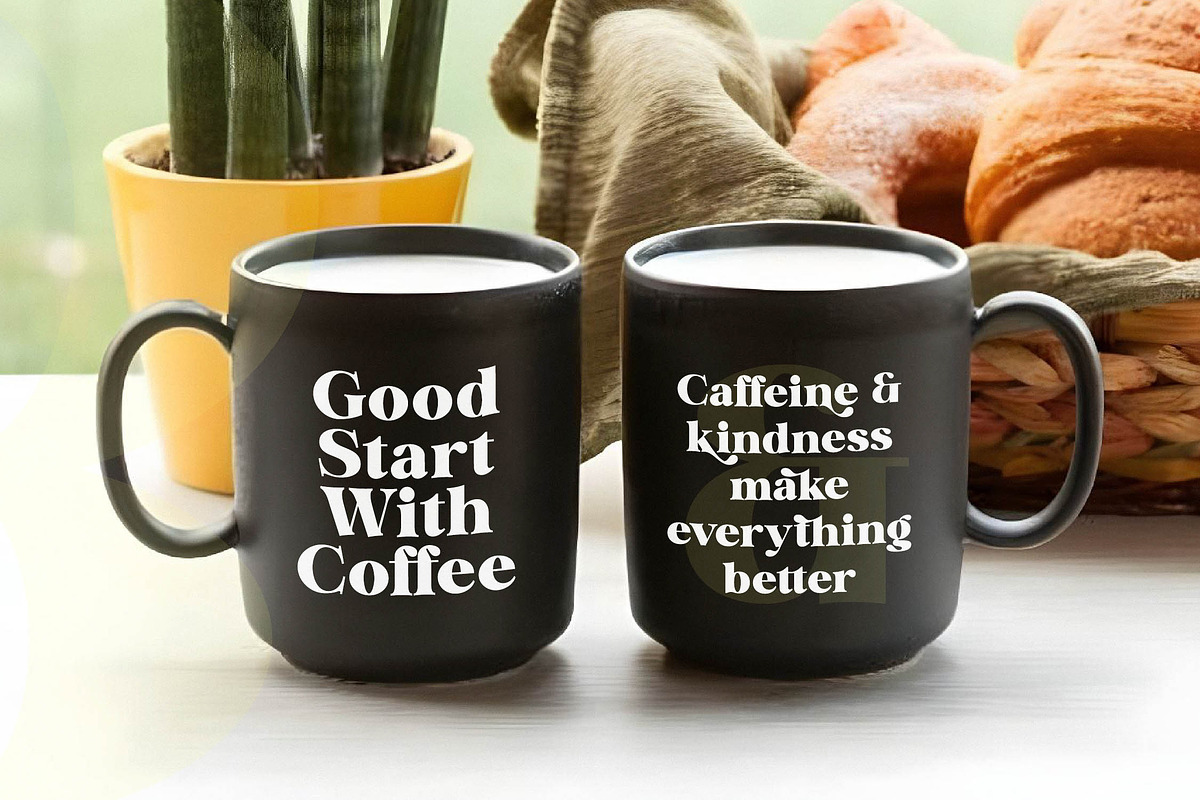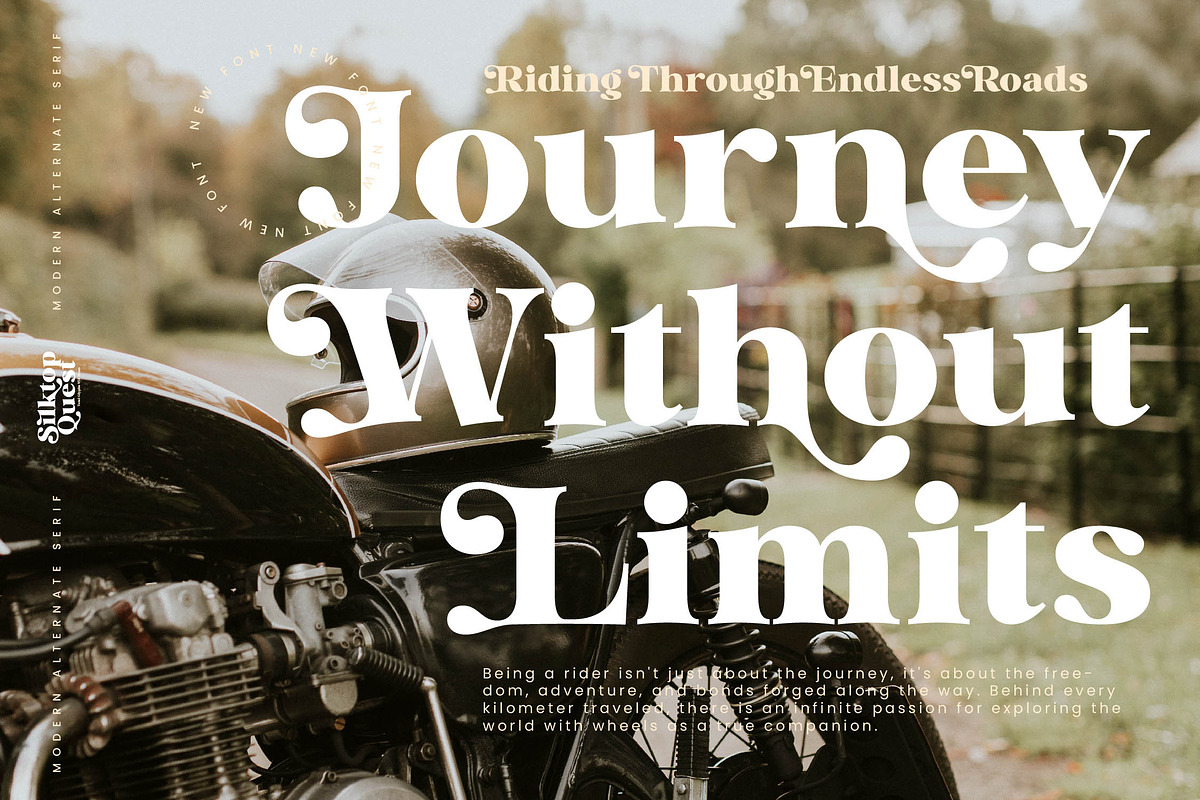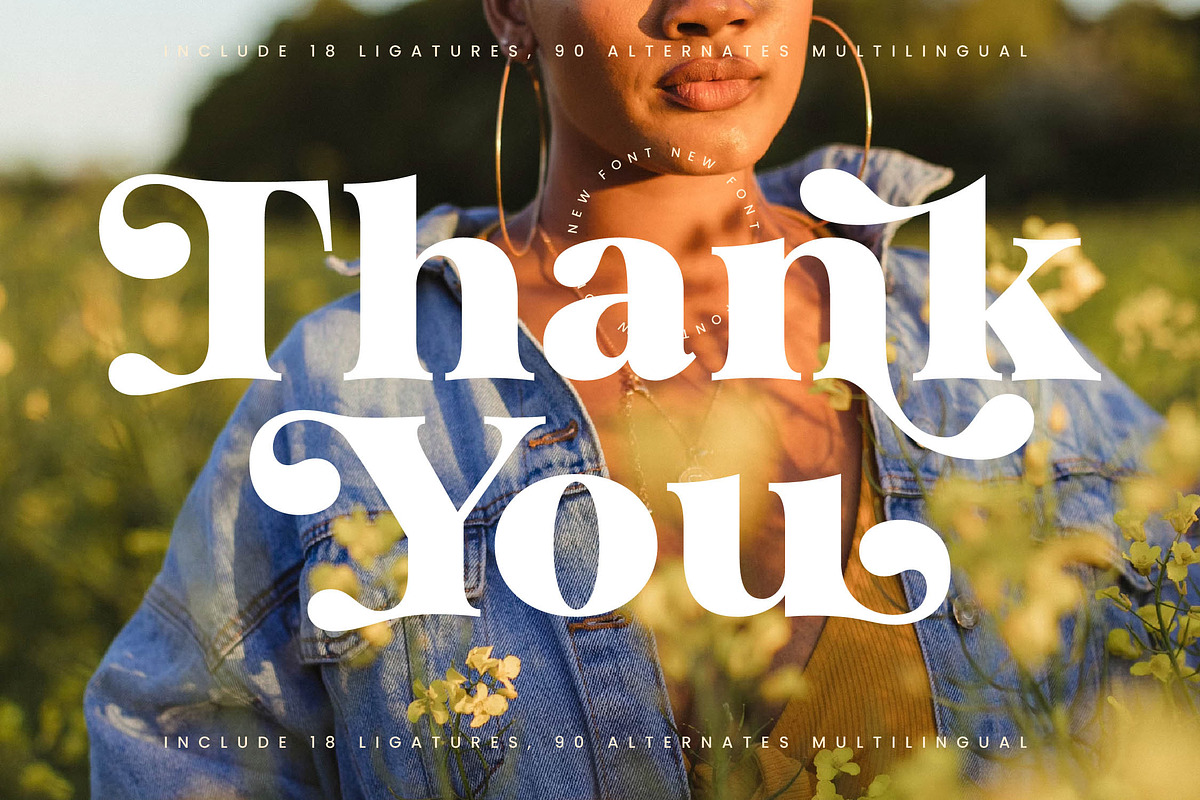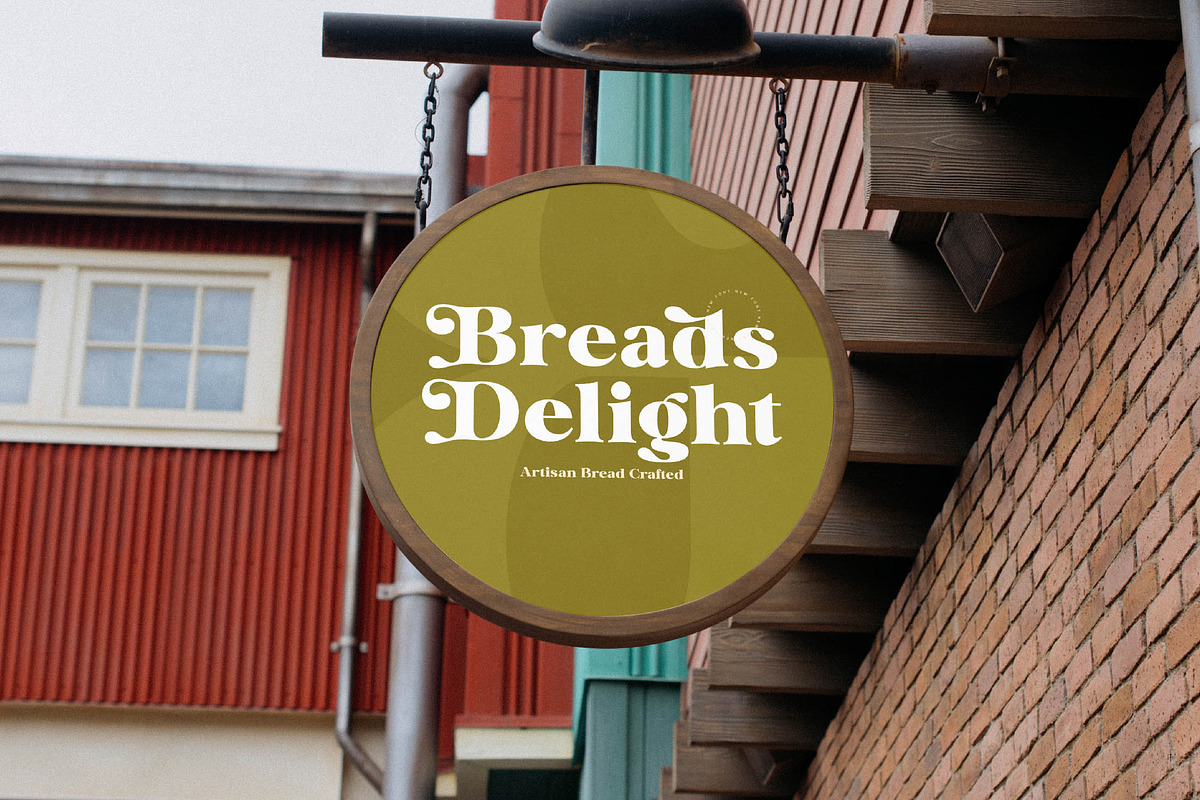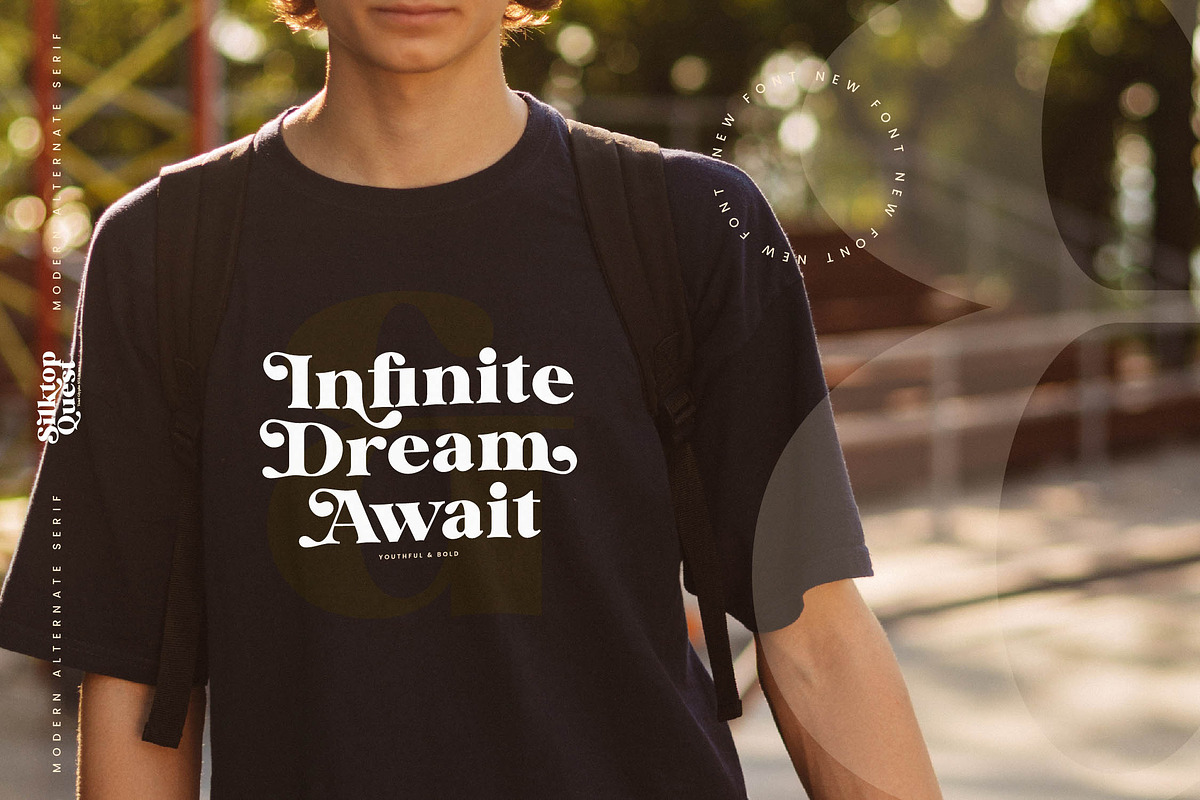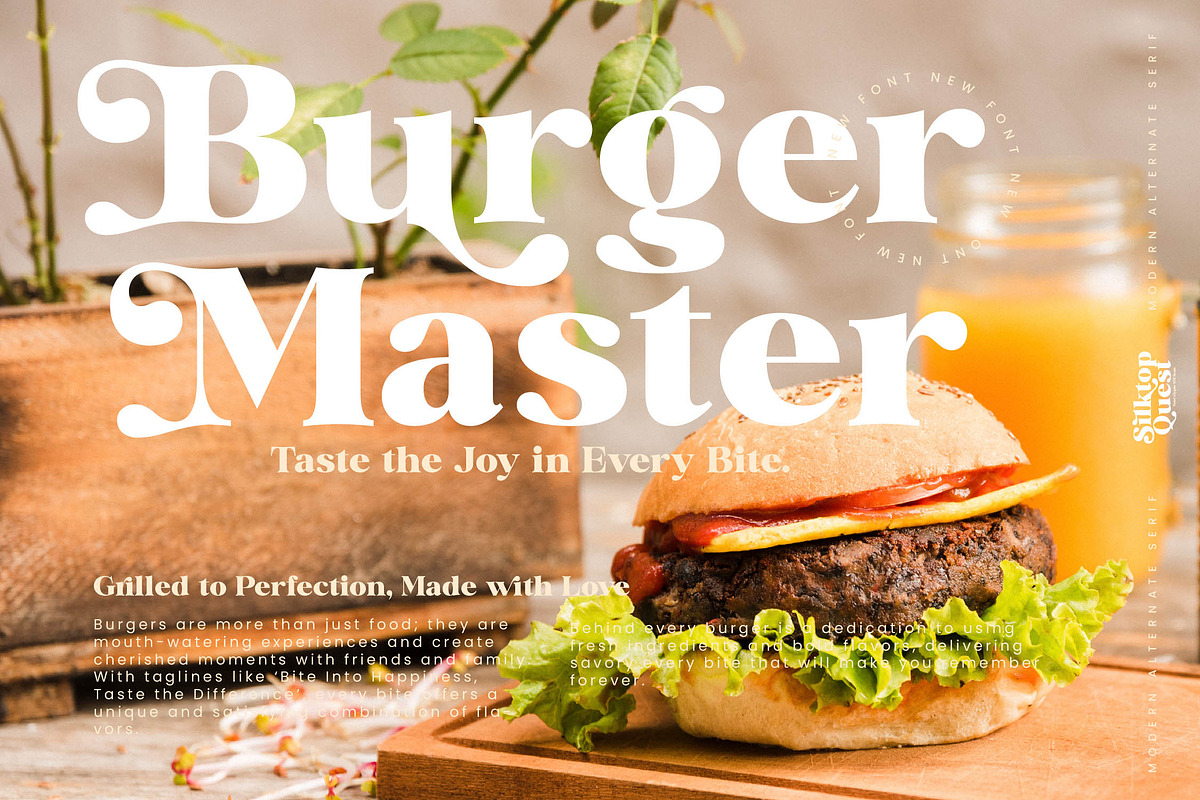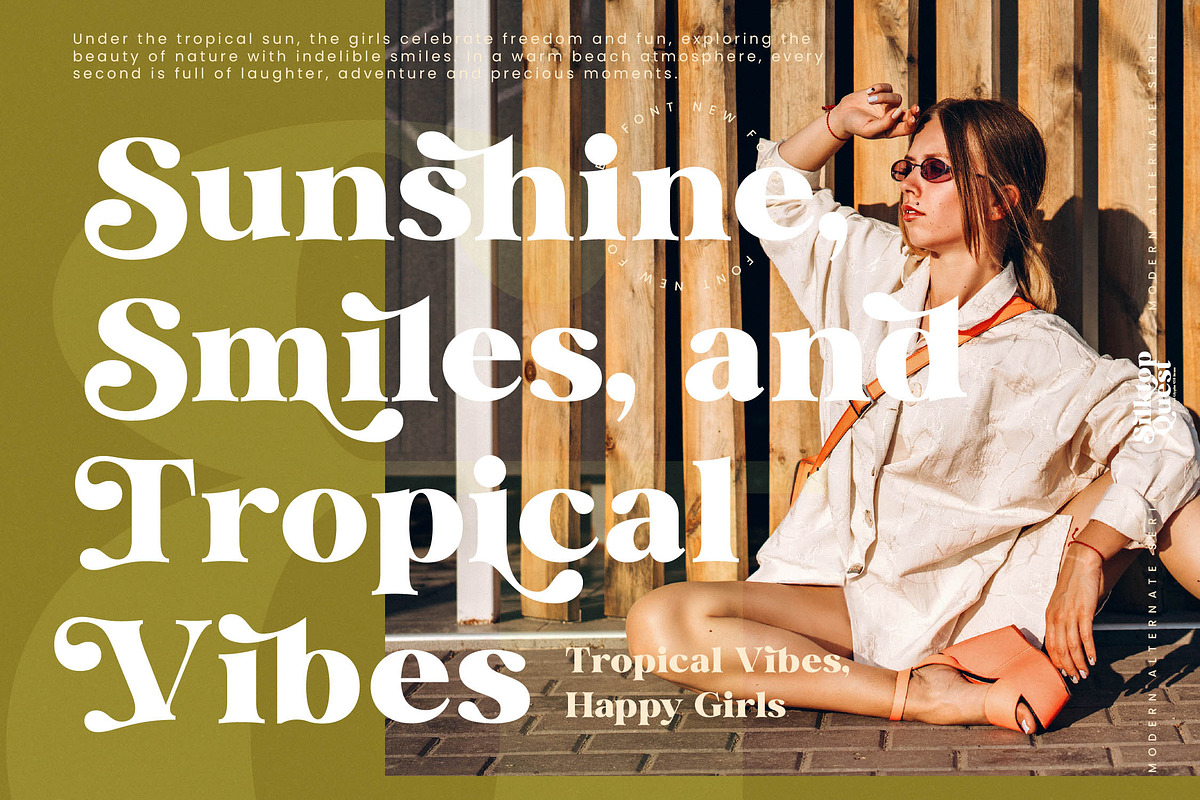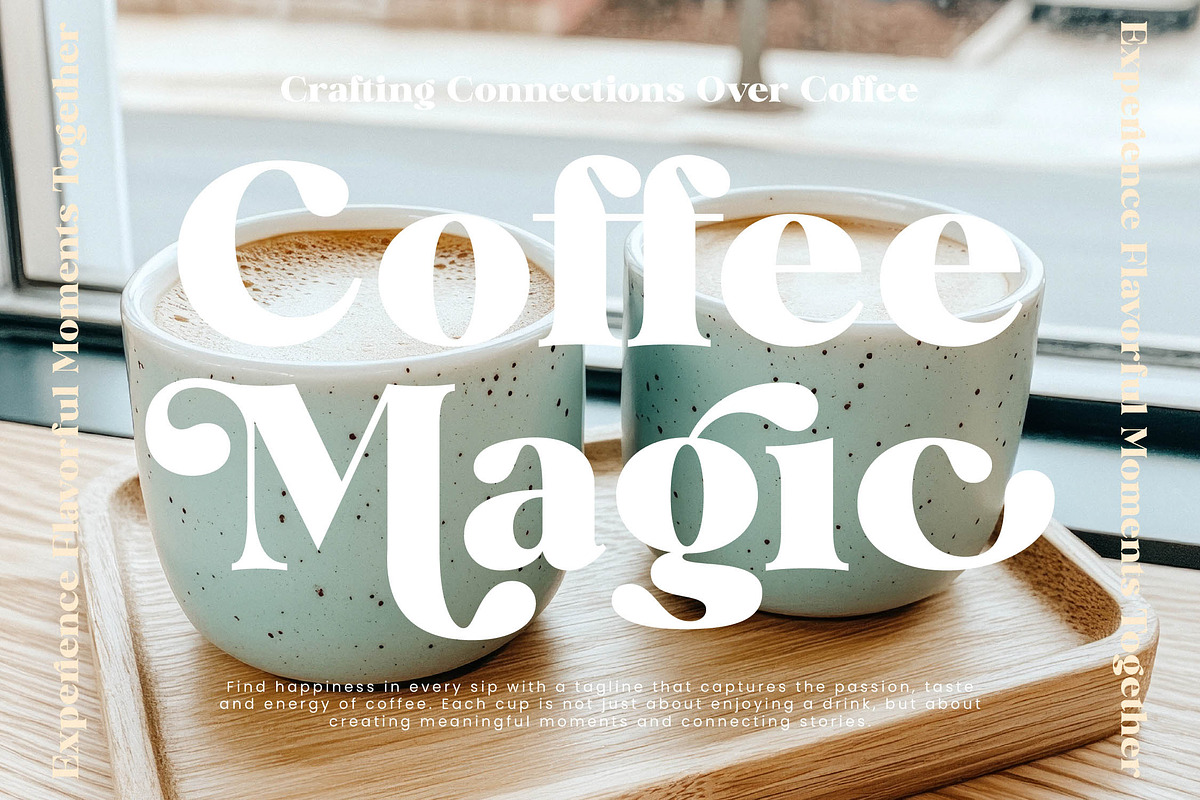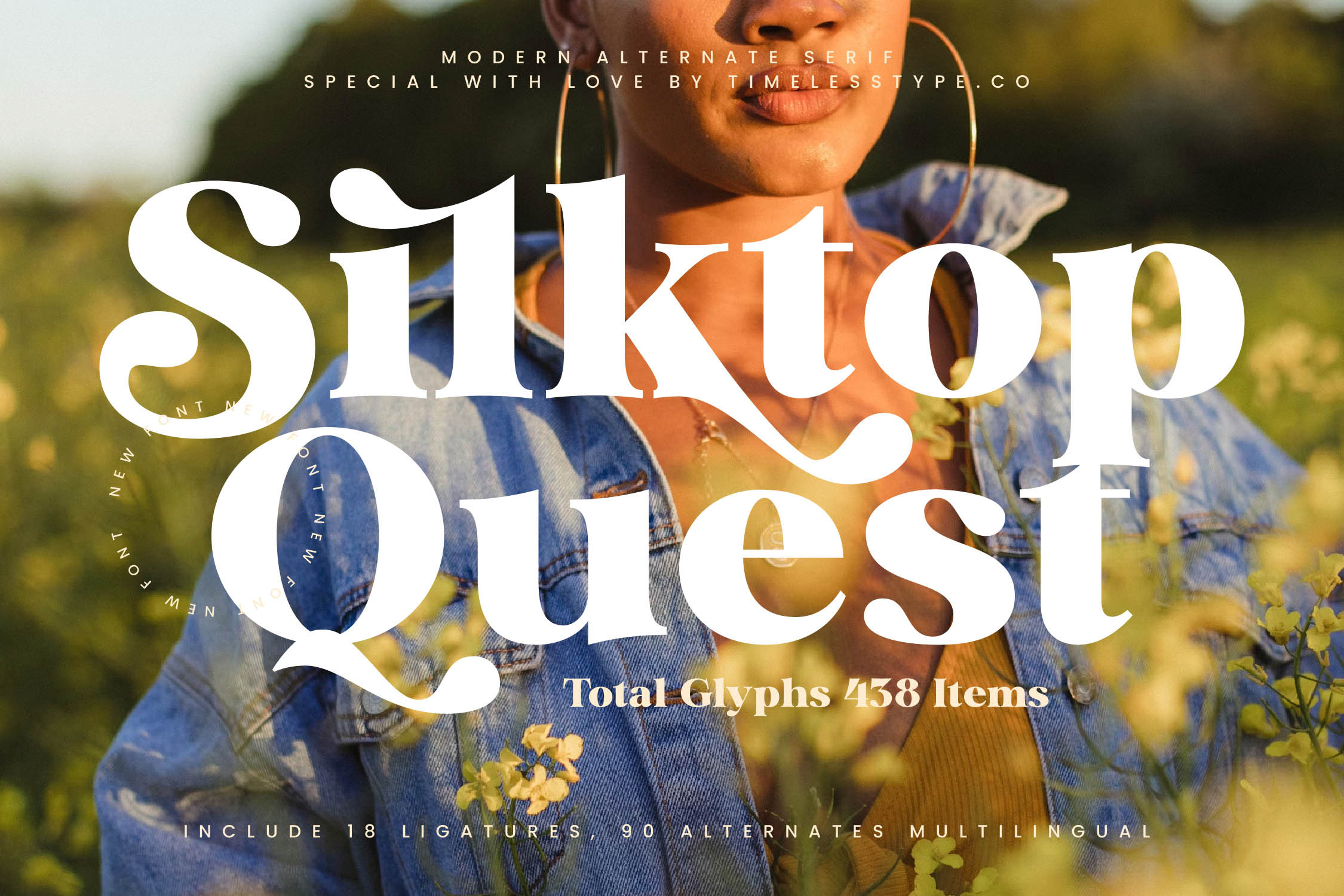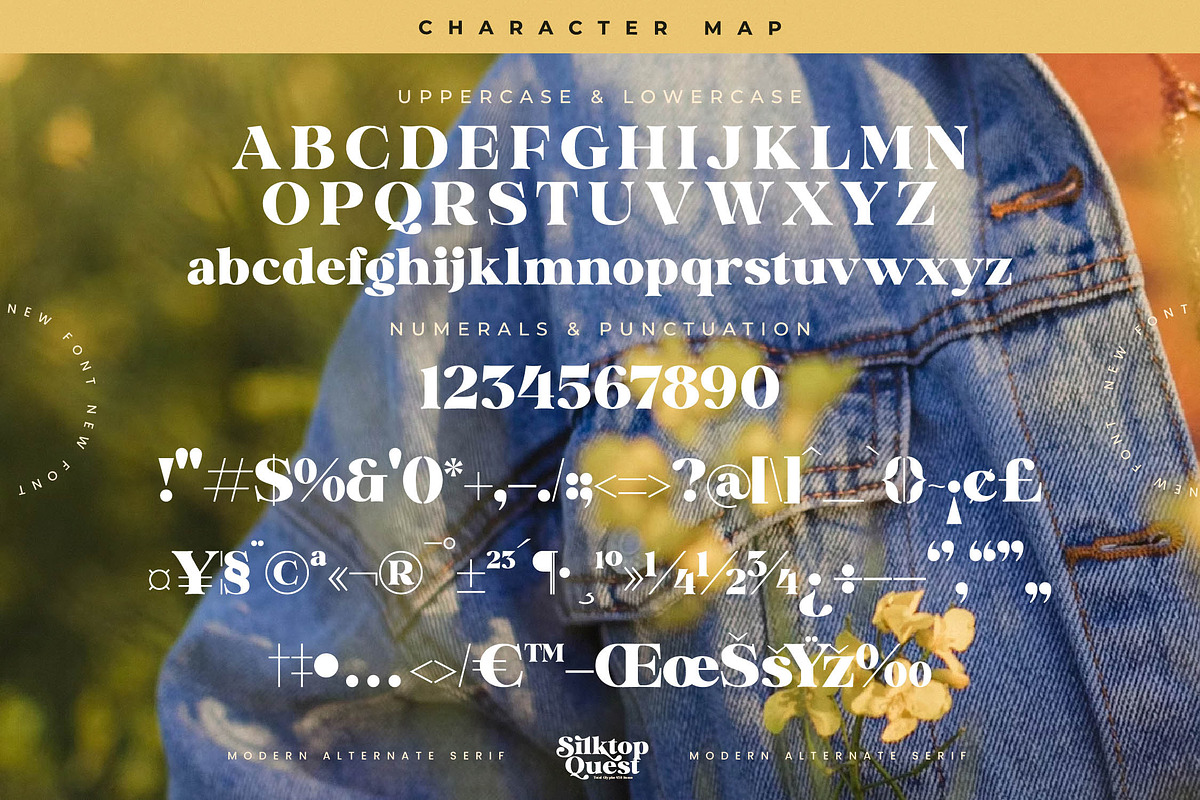
Silktop Quest Modern Serif Font
Step into a world of refined elegance where every character tells a story of sophistication and grace with Silktop Quest. This typeface is more than just letters on a page; it is a visual journey designed to capture the essence of high-end style.
Inspired by the soft movements of silk and the adventurous spirit of a botanical quest, the design balances fluid curves with sharp, modern edges. It evokes a feeling of golden hour transitions and the effortless chic of contemporary lifestyle photography.
Exhibiting a modern serif display with a distinct high-contrast serif architecture, this font delivers a powerful branding impact that demands attention. It is the quintessential luxury typography solution for creators seeking a sophisticated editorial font that speaks with both authority and beauty.
Aligning perfectly with the current modern serif trend, this typeface meets the demand for character-driven typography that breaks away from the mundane. It stands at the forefront of editorial display fonts, offering designers a versatile tool to stay ahead of evolving aesthetic movements.
Whether you are crafting a high-end logo design or developing a cohesive branding identity, this font excels in fashion and packaging contexts. It is equally at home in romantic wedding stationery or high-impact editorial layouts that require a touch of timeless class.
The pack is loaded with technical excellence, including 18 ligatures and 90 alternates that allow for custom typographic flair through unique swashes. With a total of 438 glyphs, it offers full multilingual support and a wide range of international characters to ensure your message reaches a global audience.
- Ligature 18 Alternate 90